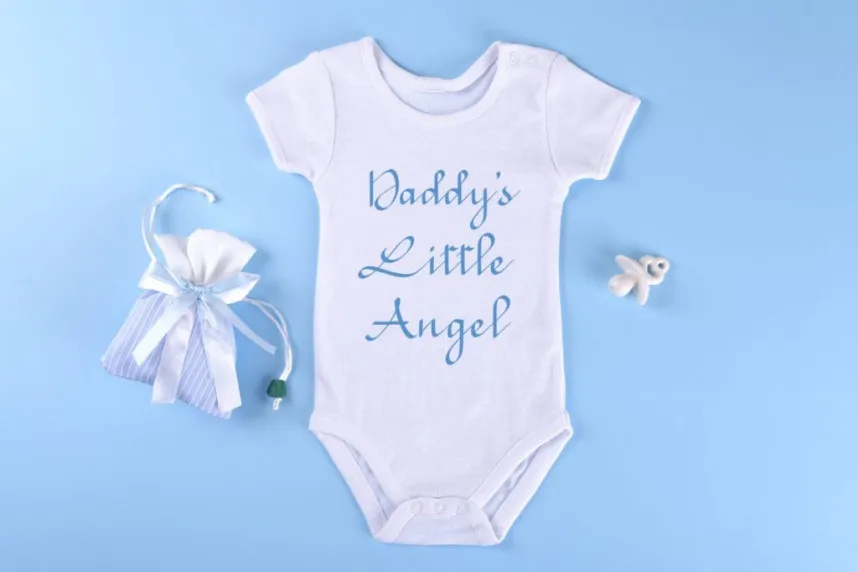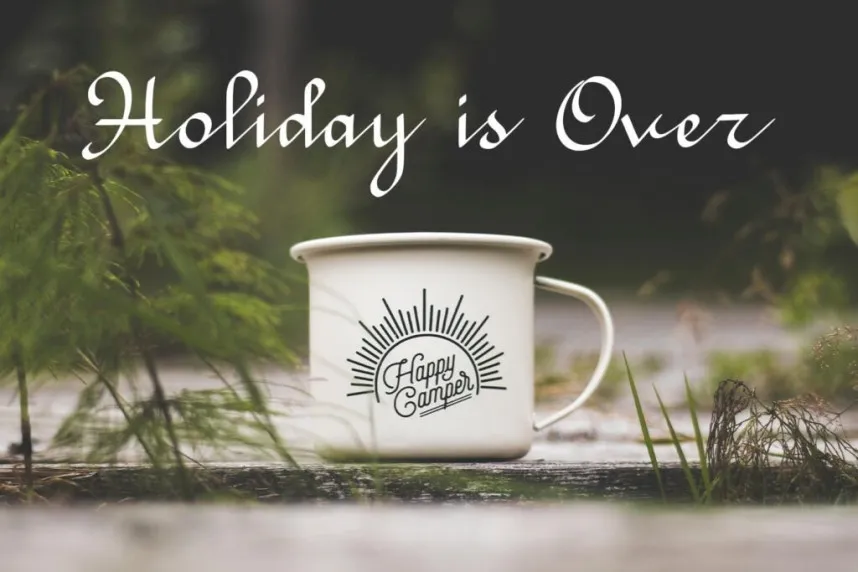
Special Queen Font is a decorative and ornate display typeface. It is designed to be regal, luxurious, and highly detailed. This font is fit for royalty and special occasions.
It may feature intricate swirls, filigrees, and dramatic serifs. Every detail is crafted to convey opulence and celebration. It commands attention through its complexity.
Ideal for certificates, luxury invitations, and high-end logos. It adds an instant feeling of importance and exclusivity to any project. It is the typographic crown jewel.
Used on packaging, it can transform a simple box into a treasure. It suggests that the contents inside are precious and valuable. It elevates the entire unboxing experience.
Special Queen Font Family
It must be paired with extreme simplicity elsewhere. A very basic sans-serif is the perfect companion. This ensures the ornate font remains legible and stunning.
Name Special Queen Font
Type Ornate Display
Designer Royal Type Studio
Usage Certificates, luxury packaging, and special occasion design
Special Queen Font is for those moments that deserve a crown. It is lavish, beautiful, and unapologetically extravagant. It is the definition of typographic luxury.